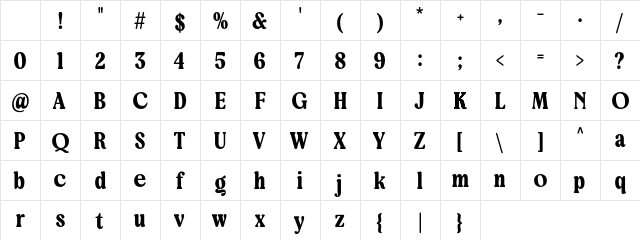
Complete Bringbold Nineties Demo Regular glyph index. Displaying only characters natively supported by Bringbold Nineties Demo Regular font.
Bringbold Nineties Demo is a composed and adaptable typeface that performs quietly and consistently across a wide range of design contexts. Its bold stroke weight gives it real presence on the page.